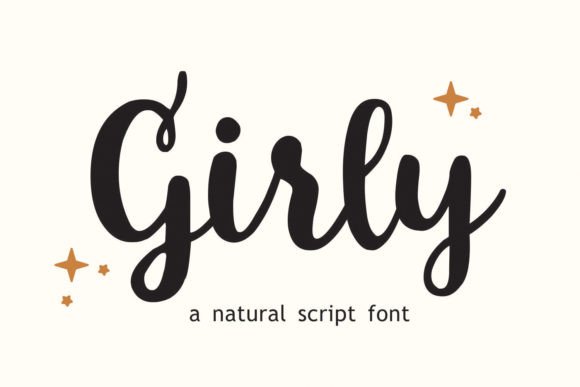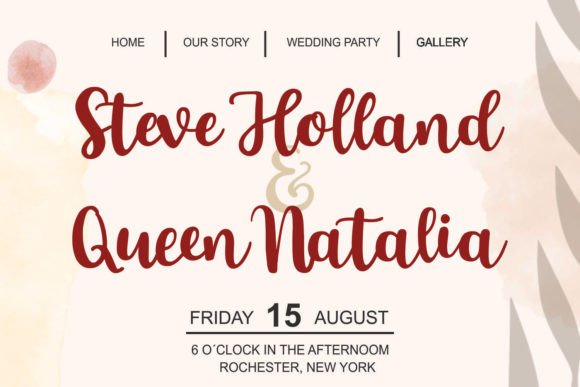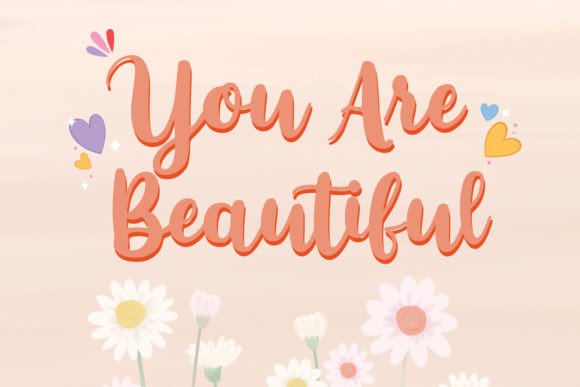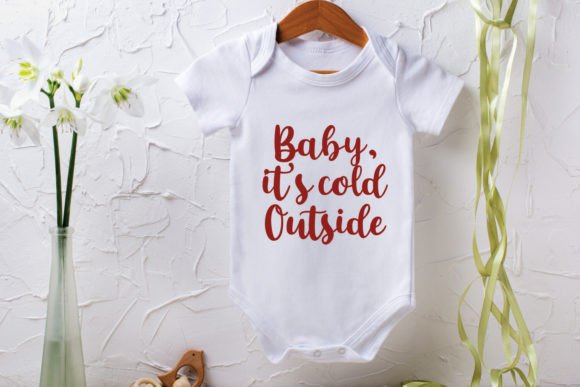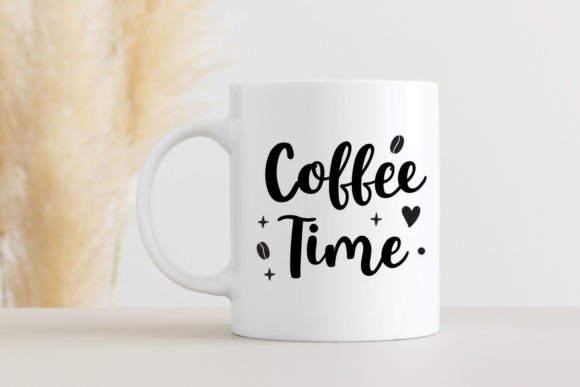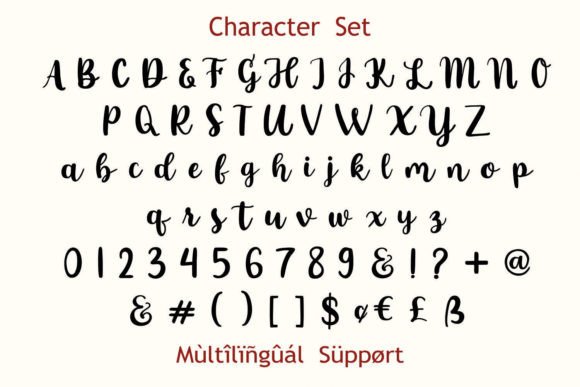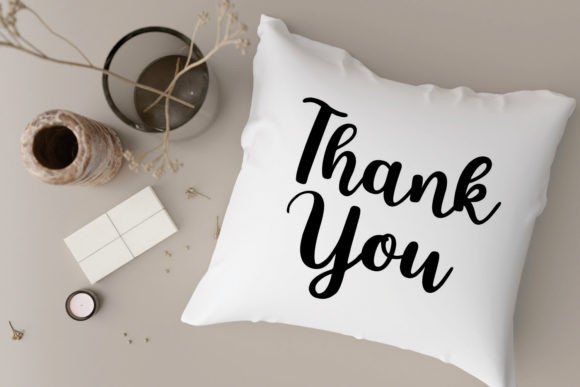
Girly Font
The “Girly” font is a delightful and whimsical script that perfectly embodies the themes of handwritten charm and quirky elegance. It’s the ideal choice for projects related to spring, autumn, holidays, New Year celebrations, crafting, and embroidery, adding a playful and feminine touch to your designs.